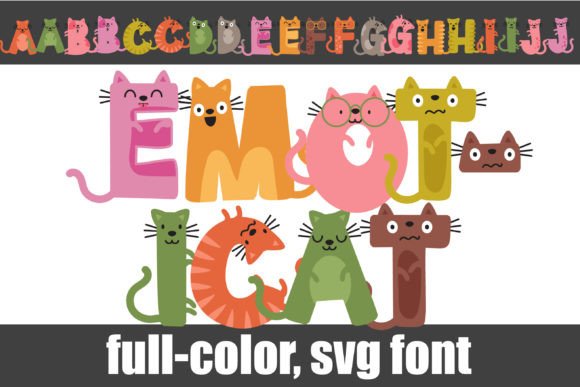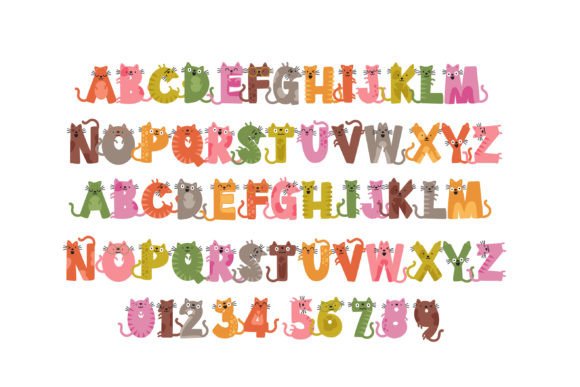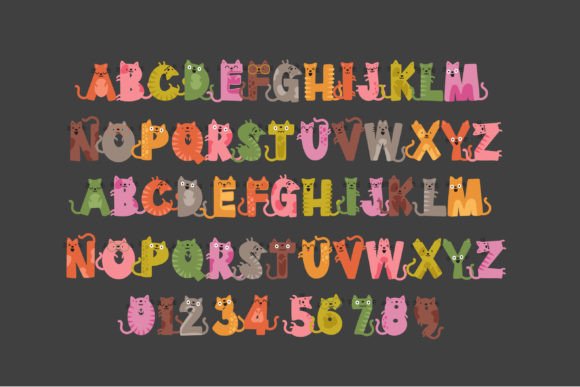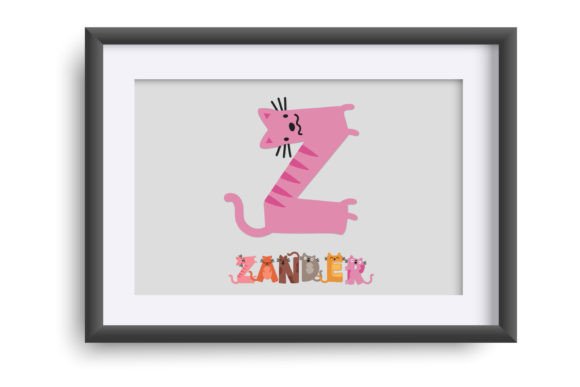
Emoticat Font: A Cute Display Font for Playful & Creative Designs
About the Emoticat Font
From logos to headlines, the Emoticat Font is the perfect choice for making a lasting impression. This full-color font features sans serif lettering that looks like cats. There is an alt case w/ additional colors you can access through your system or Silhouette’s glyph map. This font works best for titles, displays, posters and more. Please note color fonts will show as black in non compatible programs. This font type is compatible with Silhouette Studio.